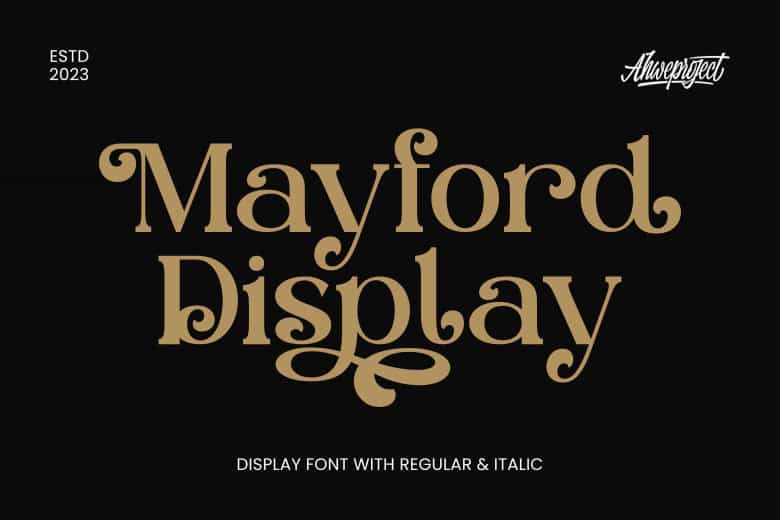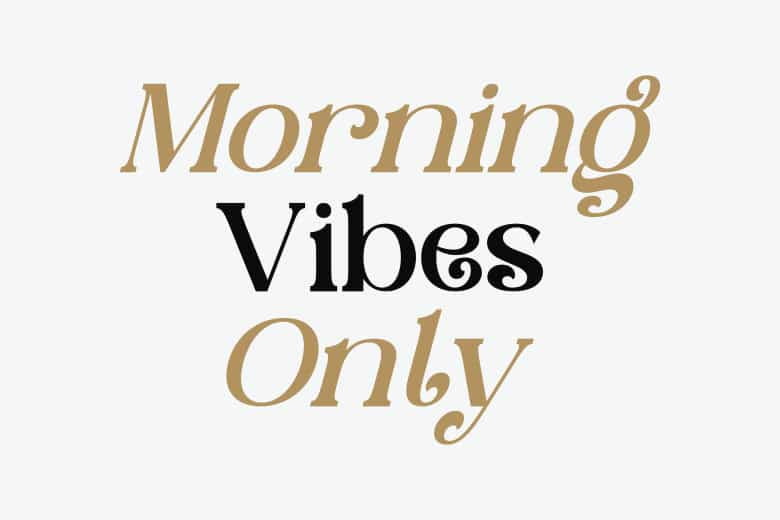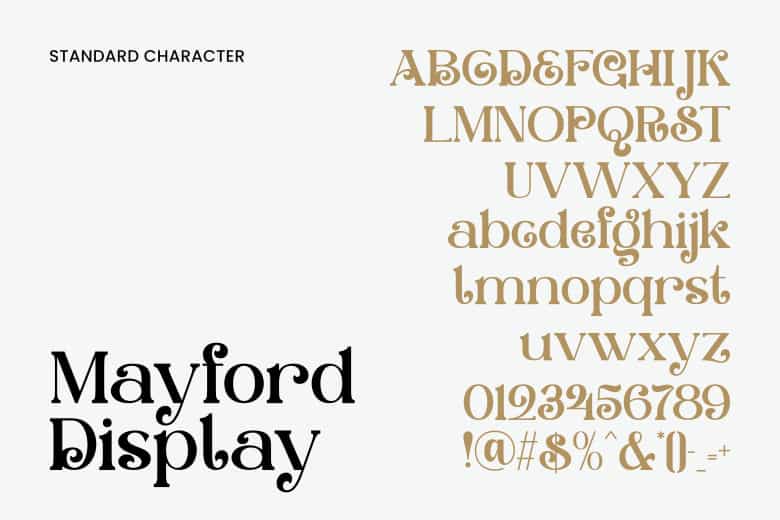
Manford Display font has a distinctive style. This font offers light letters with high contrast ratio, perfect for feminine logos as well as fashion editorial designs.